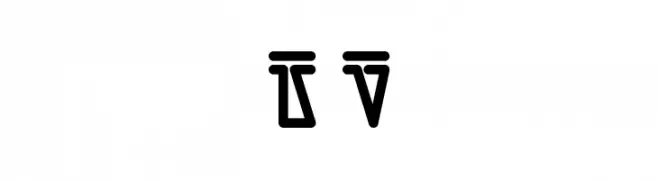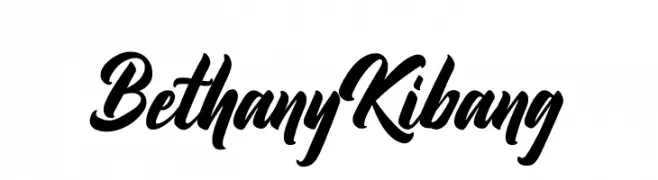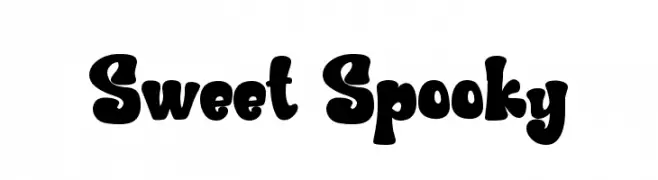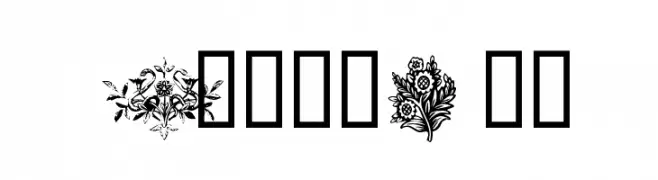
A bold, futuristic font with geometric and decorative elements.
A bold, flowing script font with elegant, interconnected characters.
A bold, geometric 3D font with a futuristic and industrial style.
A bold, playful font with a whimsical and slightly spooky vibe.
A diverse set of decorative symbols and dingbats.
A modern, extra condensed sans-serif font with a light weight and clean design.
A bold, expressive handwritten font with dynamic strokes.
A decorative script font with elegant swirls and a luxurious feel.
A bold, brushstroke font with a dynamic and textured appearance.
A bold, condensed italic font with a futuristic and dynamic style.